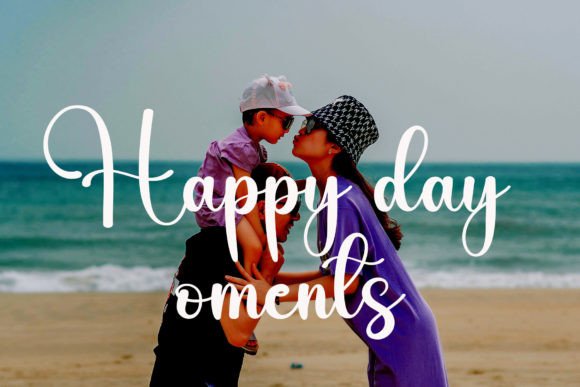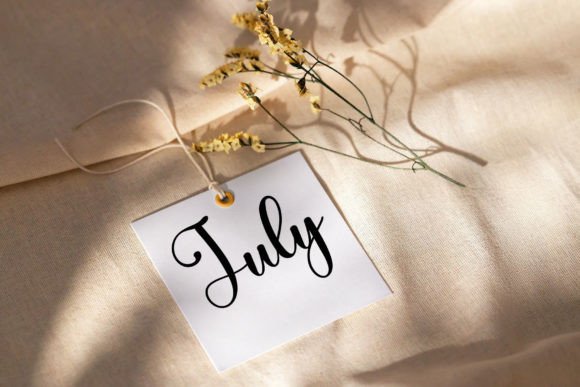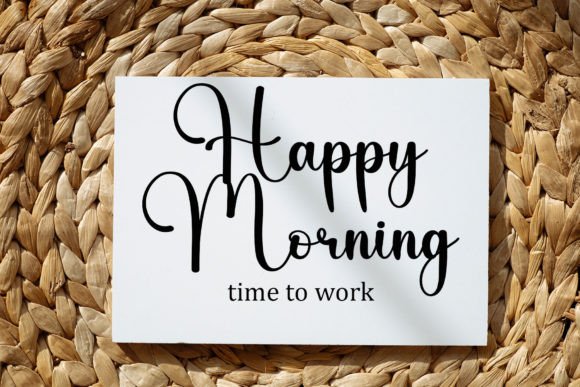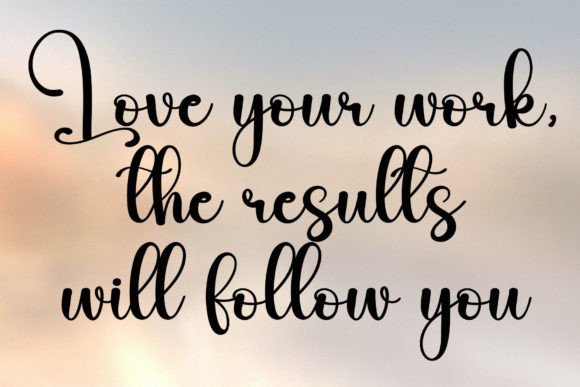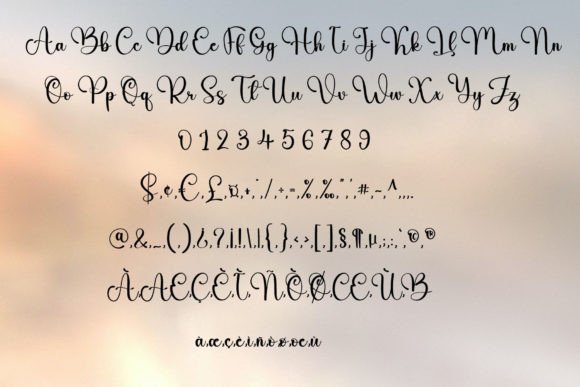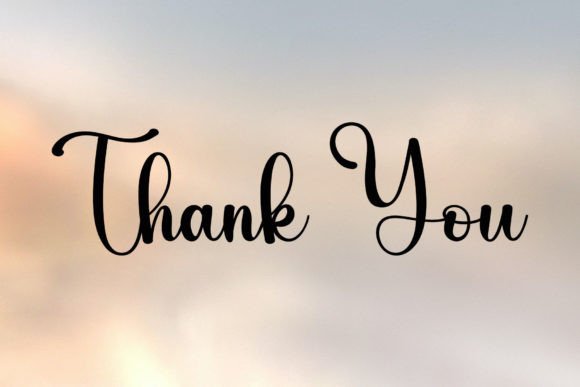
Introducing Delive Font: Elevate Your Designs with a Touch of Luxury
Are you on the hunt for a font that can add a dash of elegance and sophistication to your design projects? Look no further than Delive Font, a sweet and beautiful handwritten font that is sure to capture the hearts of designers and crafters alike. With its unique charm and luxurious feel, Delive is the perfect addition to any design endeavor.
The Characteristics of Delive Font
Delive Font boasts characters that dance along the baseline, creating a sense of movement and fluidity. This distinctive feature sets it apart from other fonts and gives it a unique personality. The font’s handwritten nature adds a touch of warmth and approachability, making it ideal for designs that require a personal and luxurious feel.
Adding a Luxury Spark to Your Designs
Delive Font is designed to add a luxury spark to any design project. Whether you’re working on a branding project, a wedding invitation, or a packaging design, Delive is sure to elevate your design to the next level. Its elegant and sophisticated feel makes it perfect for designs that require a high-end look and feel.
Delive Font is a versatile font that is perfect for designers and crafters alike. Its unique charm and luxurious feel make it an excellent choice for a wide range of design projects, including:
- Branding and logo design
- Packaging design and product labels
- Blog and website design
Why Choose Delive Font?
There are many reasons why Delive Font stands out from the crowd. Here are just a few:
- Unique and distinctive: Delive Font has a unique and distinctive feel that sets it apart from other fonts.
- Luxurious and elegant: Delive Font exudes luxury and elegance, making it perfect for high-end designs.
- Versatile: Delive Font is versatile and can be used for a wide range of design projects.
- Easy to read: Despite its elegant feel, Delive Font is easy to read and understand.
Tips for Using Delive Font
To get the most out of Delive Font, here are a few tips:
- Use it sparingly: Delive Font is a statement font, so use it sparingly to add emphasis and luxury to your designs.
- Pair it with other fonts: Delive Font pairs well with other fonts, so experiment with different combinations to find the perfect look.
- Adjust the size and color: Adjust the size and color of Delive Font to suit your design needs.
In conclusion, Delive Font is a sweet and beautiful handwritten font that is sure to add a luxury spark to any design project. Its unique charm and elegant feel make it perfect for designers and crafters who want to create high-end designs. With its versatility and ease of use, Delive Font is an excellent addition to any design collection.